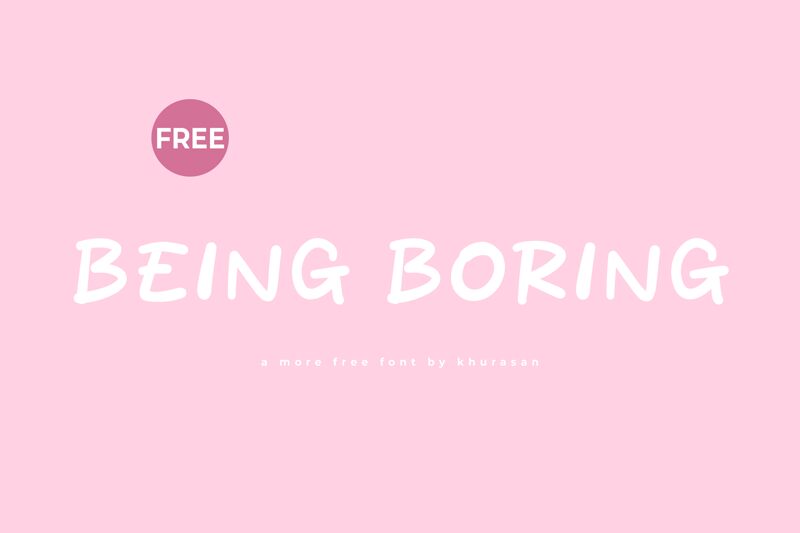
Being Boring
Being Boring is a captivating handwritten font that exudes a casual, yet refined charm. Designed by Khurasan, this font effortlessly combines organic, flowing strokes with a touch of playfulness, creating a visually striking and versatile typographic solution.
The irregular, hand-drawn letterforms lend a sense of authenticity and personality, making this font an excellent choice for a wide range of design applications, from branding and packaging to editorial layouts and social media content. Its expressive characteristics can effectively convey a sense of warmth, creativity, and authenticity, making it a versatile tool for designers seeking to add a distinctive, handcrafted touch to their projects.